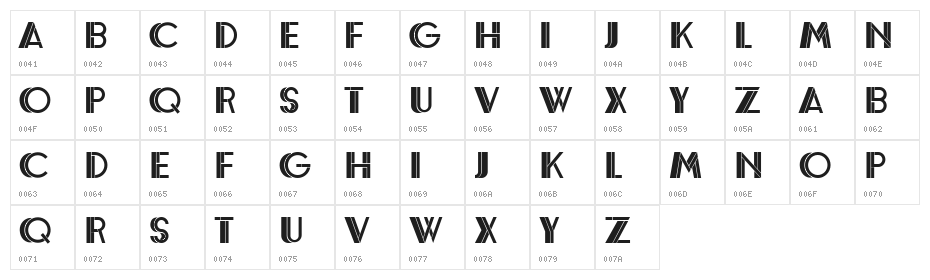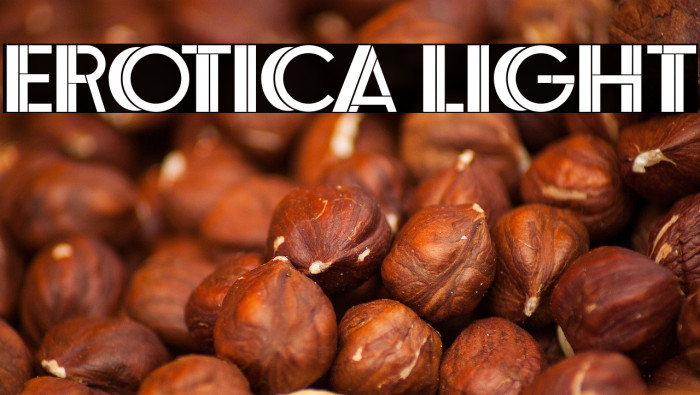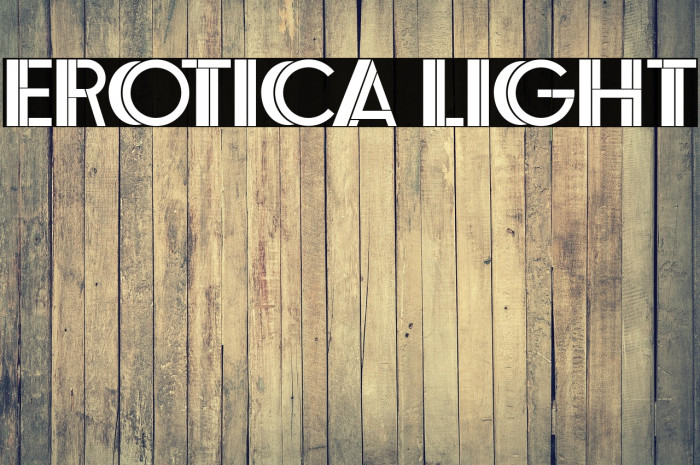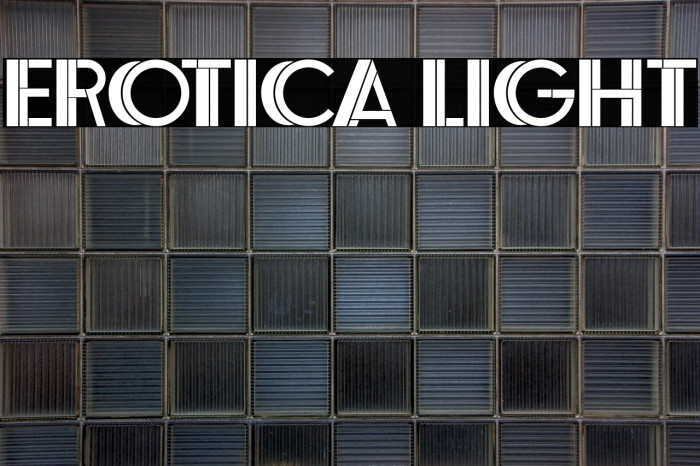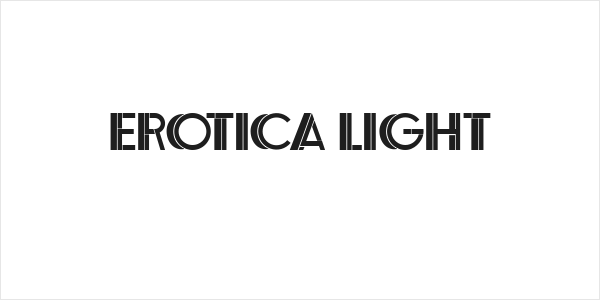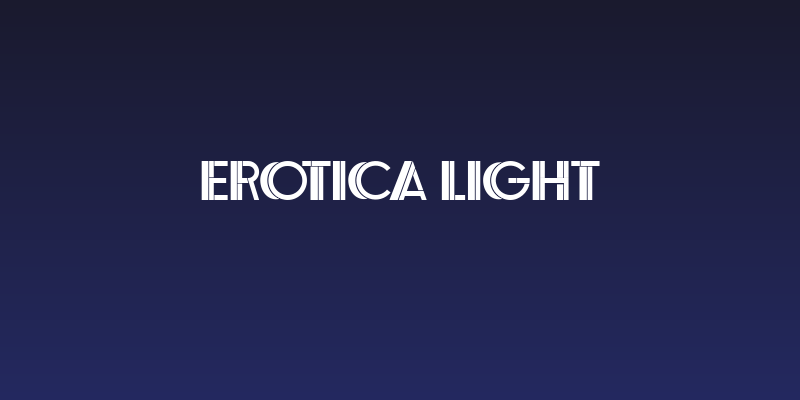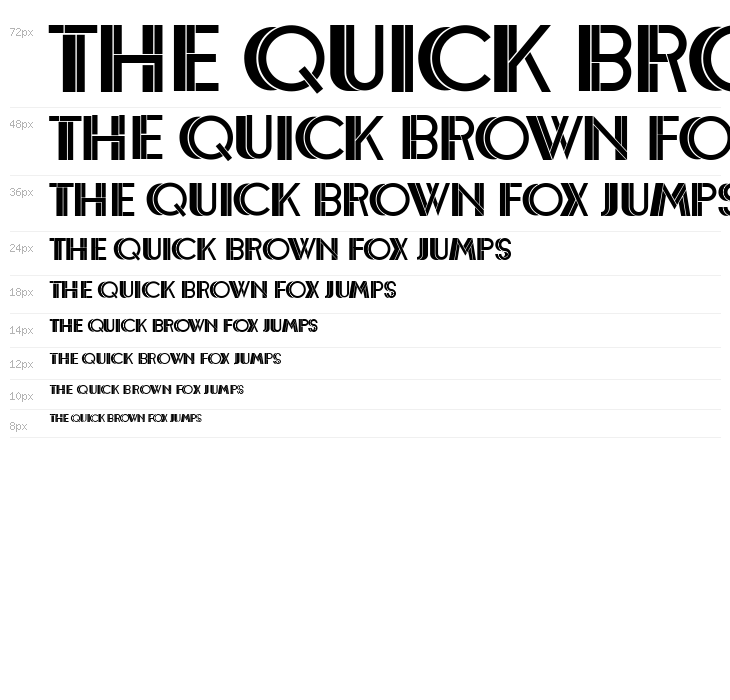
Erotica Light Font
Erotica Light Description
This font features a bold and striking geometric design with a modern flair. The characters are constructed with sharp angles and clean lines, creating a sense of movement and energy. The uppercase letters are particularly distinctive, with some characters incorporating unique cutouts and slashes that add to the font's dynamic appearance. The overall style is both futuristic and retro, making it versatile for various creative applications. Its boldness and unique character shapes make it stand out, perfect for projects that require a strong visual impact.